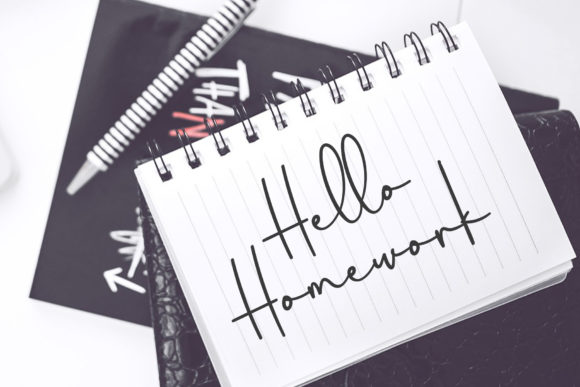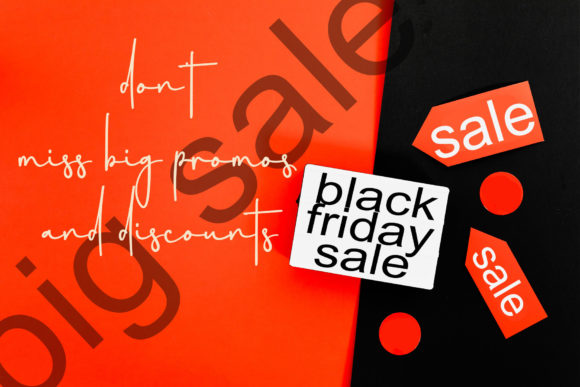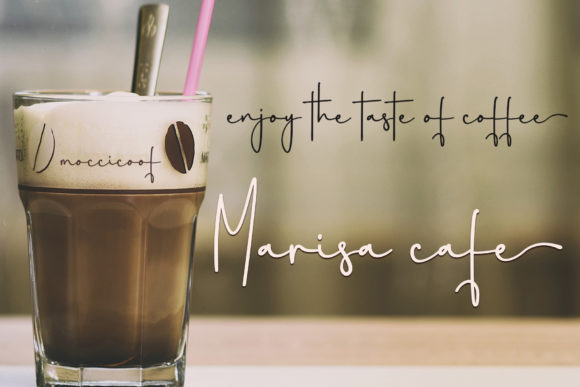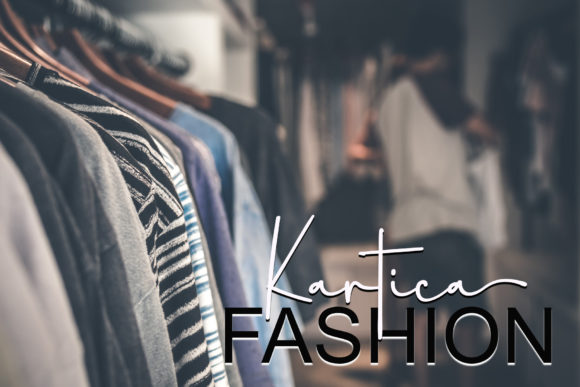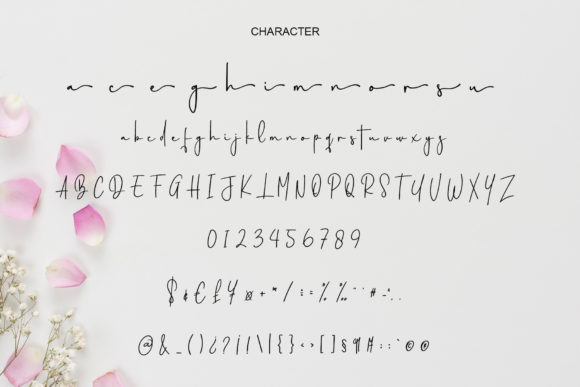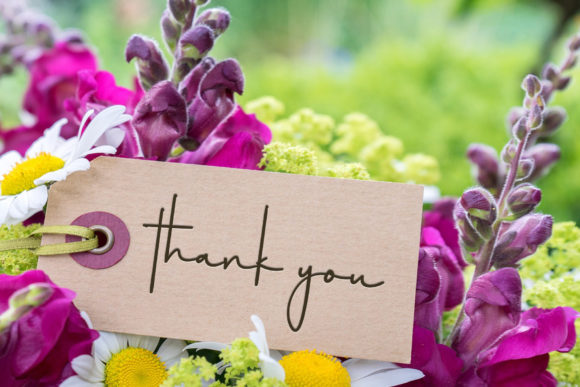
Handfuls Font
About Handfuls Font
Handfuls is a signature script font that exudes an air of elegance and sophistication. With its stylish and classy style, this font adds a touch of refinement to any design project.
The fluid and graceful letterforms of Handfuls make it a perfect choice for a wide range of products and applications. Its signature-like quality adds a personal and intimate touch to your designs, making it ideal for creating personalized logos, branding materials, and business cards.
The font’s versatility allows it to adapt seamlessly to different contexts. Whether you’re designing wedding invitations, elegant packaging, or upscale restaurant menus, Handfuls can convey a sense of luxury and timeless beauty that enhances the overall aesthetic of your project.
Handfuls’ elegant and classy style also makes it suitable for creating captivating quotes, inspirational messages, and social media graphics that demand attention and convey a sense of sophistication.
The font’s refined strokes and flowing curves give it a natural and organic feel, creating a harmonious balance between elegance and approachability. This quality allows Handfuls to work well in both formal and informal settings, giving you the flexibility to use it across various design projects.
In summary, Handfuls is a signature script font that radiates elegance and class. Its versatile style lends itself to a wide variety of products, making it a valuable asset for your design toolkit. Whether you’re aiming for a high-end branding look or a personalized touch, Handfuls can help you achieve a polished and sophisticated outcome.